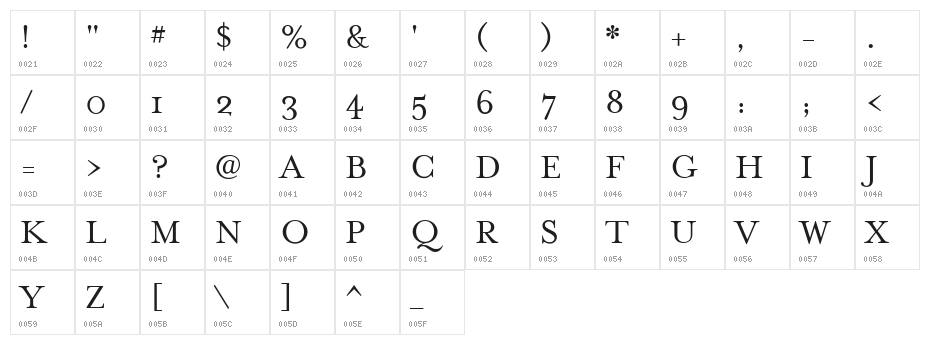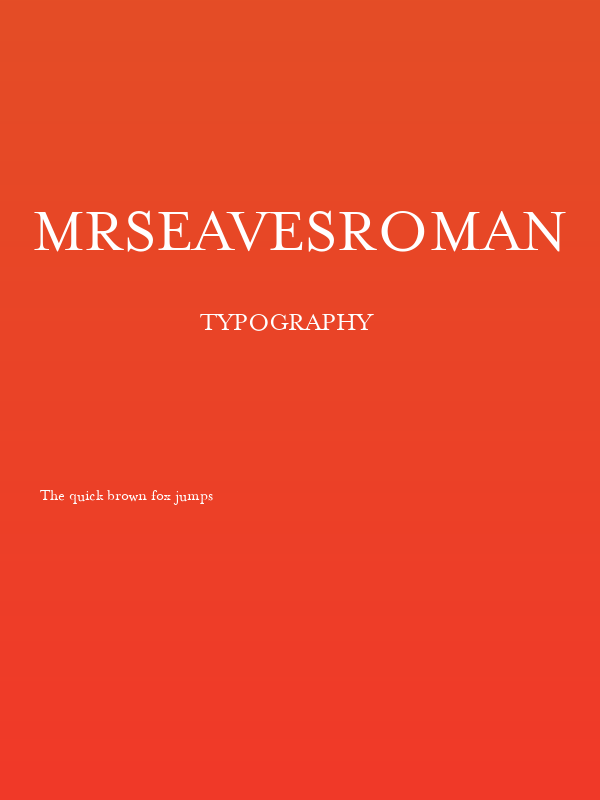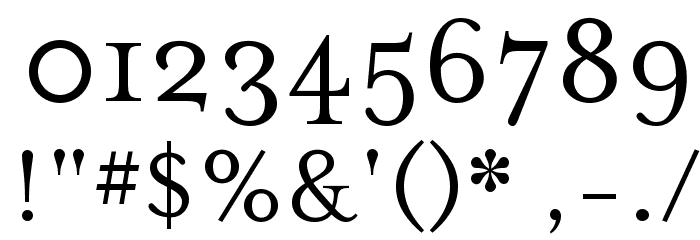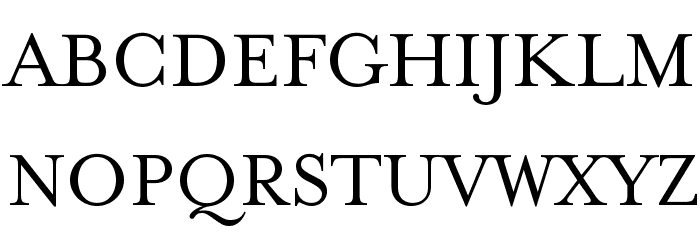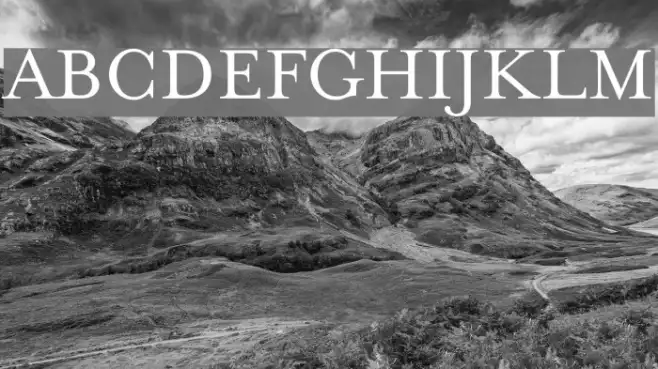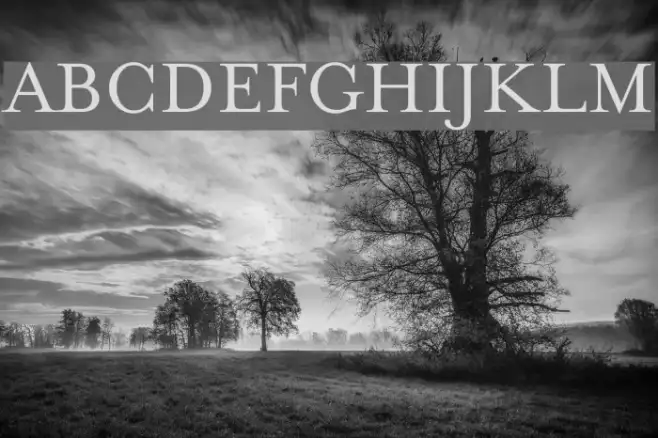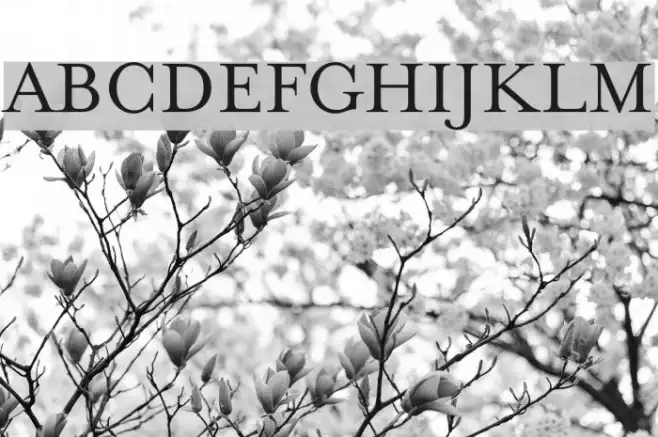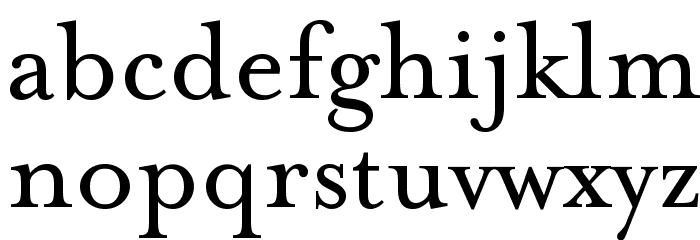
MrsEavesRoman Font
MrsEavesRoman Description
This font exudes a classic elegance with its refined serif style, characterized by its balanced proportions and subtle contrast in stroke thickness. The uppercase letters are stately and well-defined, while the lowercase letters maintain a graceful flow, making it versatile for both formal and casual applications. The numerals are clear and distinct, ensuring readability. Special characters are thoughtfully designed, complementing the overall aesthetic. This font is ideal for projects that require a touch of sophistication and timeless appeal.
| Overall Style | Classic |
| Use Case | Body text, Headlines, Editorial design |
| Proposed Projects | Ideal for book typesetting, formal invitations, branding, and editorial design. |